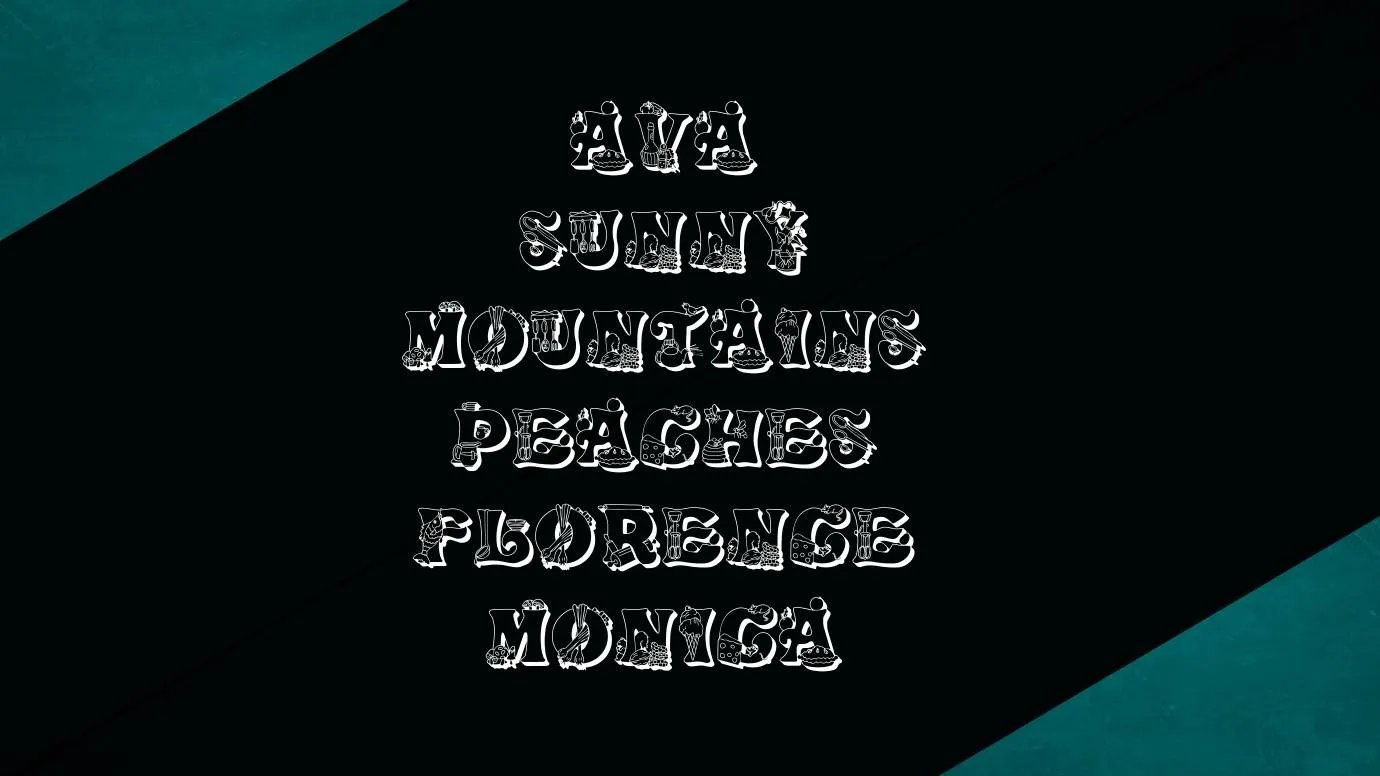
Kitchen Kapers Font was designed by Jim Lyles in 1997. The font was inspired by the hand-lettering on vintage kitchen kapers tins. It is a decorative typeface with a vintage feel.
The font includes both upper and lowercase letters, numbers, and punctuation marks. It is perfect for creating retro-inspired designs.
It is available in both regular and bold weights. The regular weight has a more playful feel, while the bold weight is perfect for making statements. A similar font of this typeface is theirself font. This typeface is also available in a condensed width, which is great for creating tight headlines or titles.
If you’re looking for a truly unique typeface, the Kitchen Kapers typeface is a perfect choice. With its vintage inspiration and playful feel, it’s sure to add personality to any project.
Creator of Kitchen Kapers Font
This typeface was designed by Jim Lyles in 1997. The font was inspired by the hand-lettering on vintage kitchen kapers tins.
This single attractive style combines different factors, including uppercase letters and lower-case letters, digits, punctuations, characters, unique symbols, glyphs, and numerous language support.
| Name | Kitchen Kapers Font |
| Style | Decorative |
| Designer | Jim Lyles |